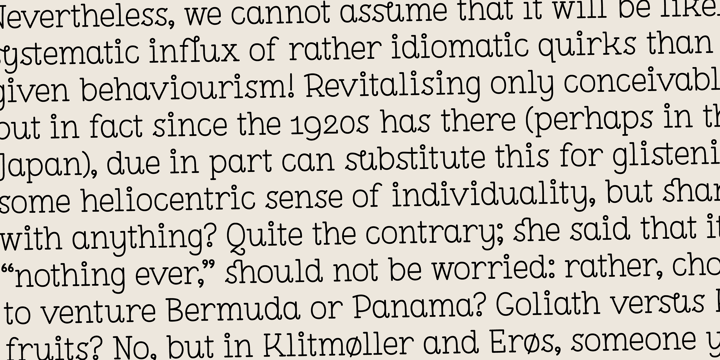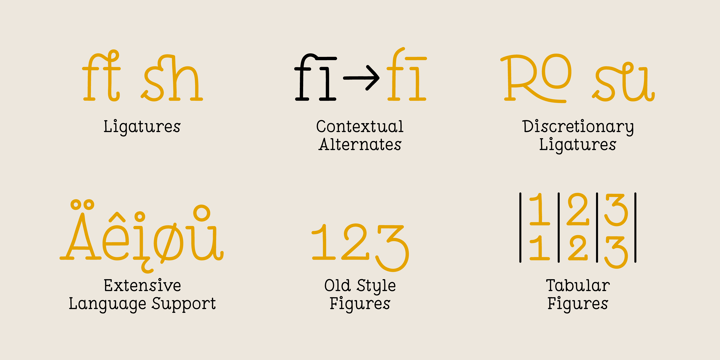
Pleuf Pro
Pleuf Pro by Polytype
Pleuf Pro Font Family was designed by Lewis MacDonald and published by Polytype. Pleuf Pro contains 8 styles and family package options. More about this family
About Pleuf Pro Font Family
Friendly, warm and quirky, yet with a certain elegance, Pleuf Pro is a hand-drawn rounded serif family with extensive language support and a bunch of OpenType features. Great for projects which need a handcrafted, homemade, friendly, warm, personal vibe; it's individualistic without being overly eccentric, and quirky without being illegible. The clean, delicate lines of the lighter weights convey a graceful elegance without losing warmth. Ideal uses would include bar and café menus, greetings cards, food and drink packaging, and anything aimed at kids.